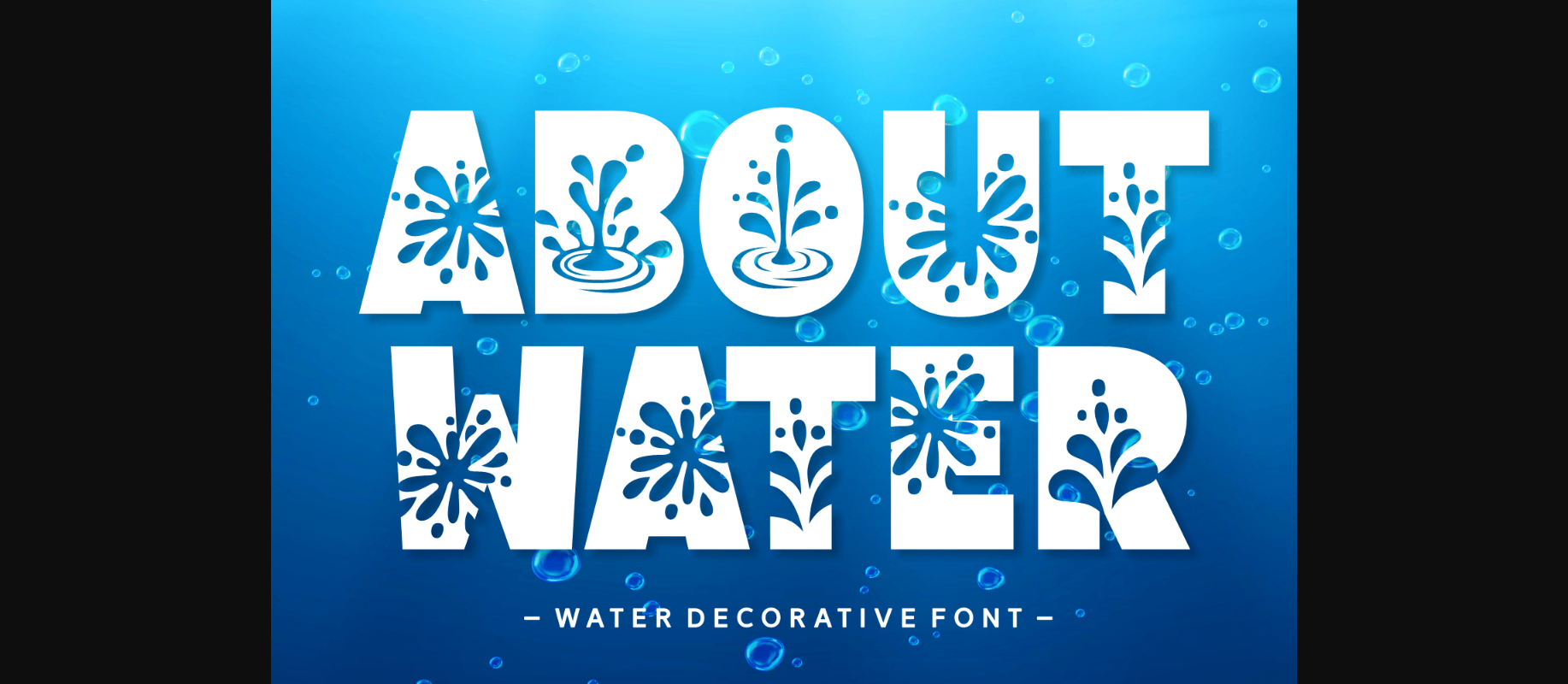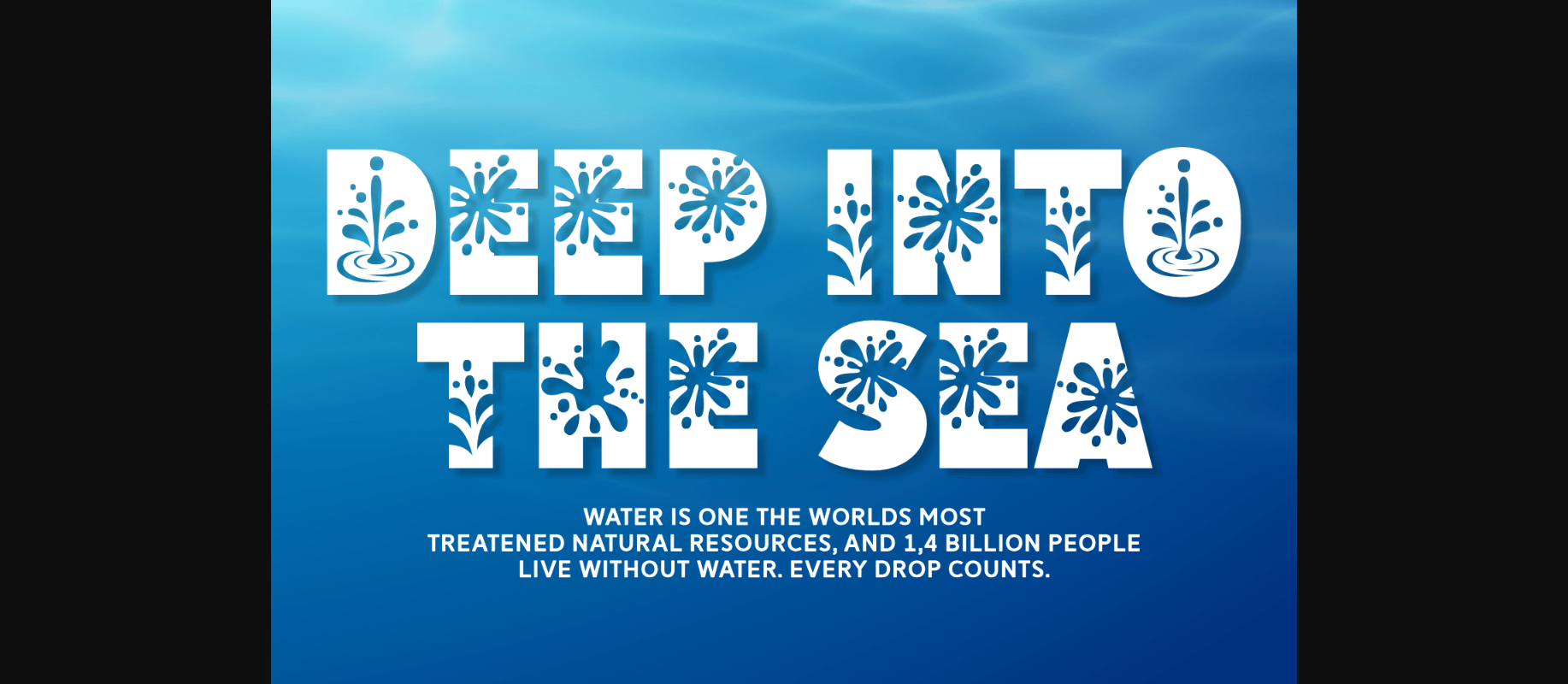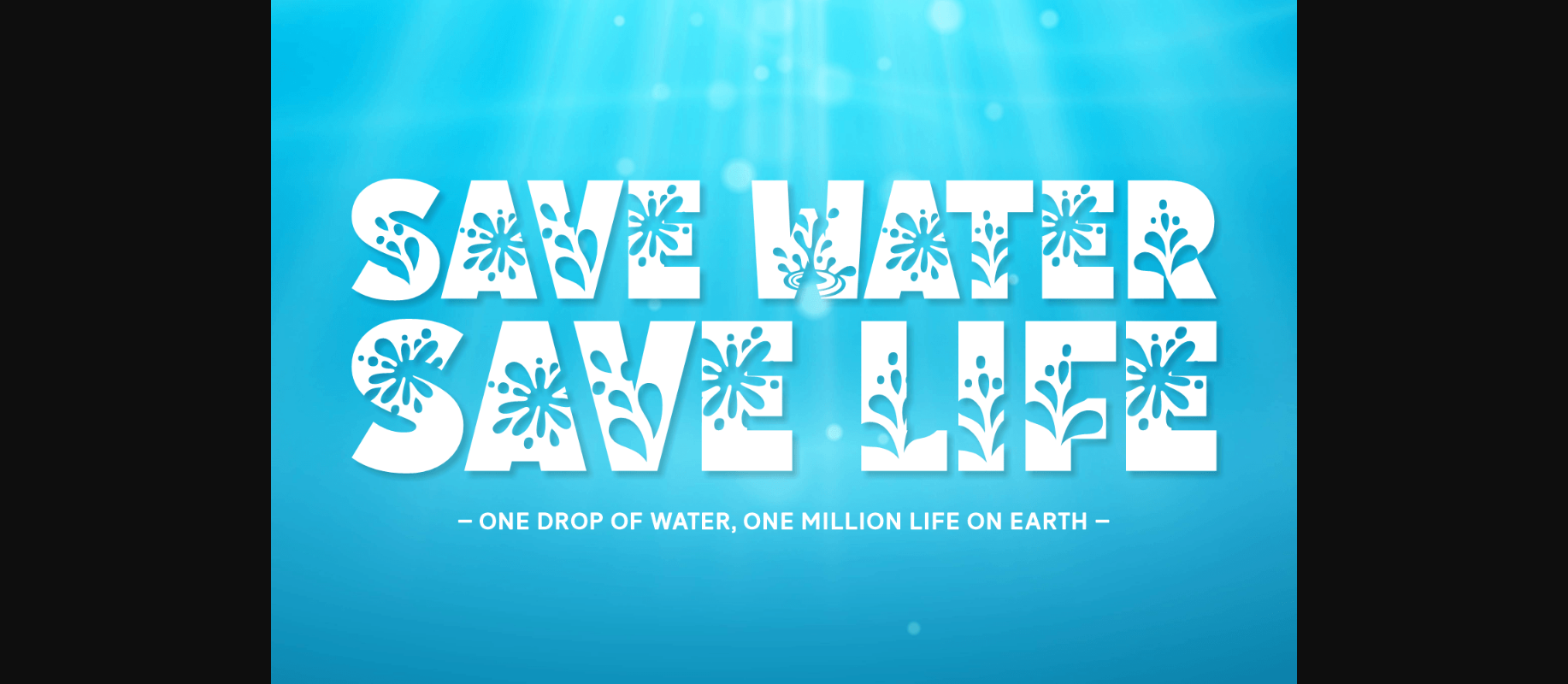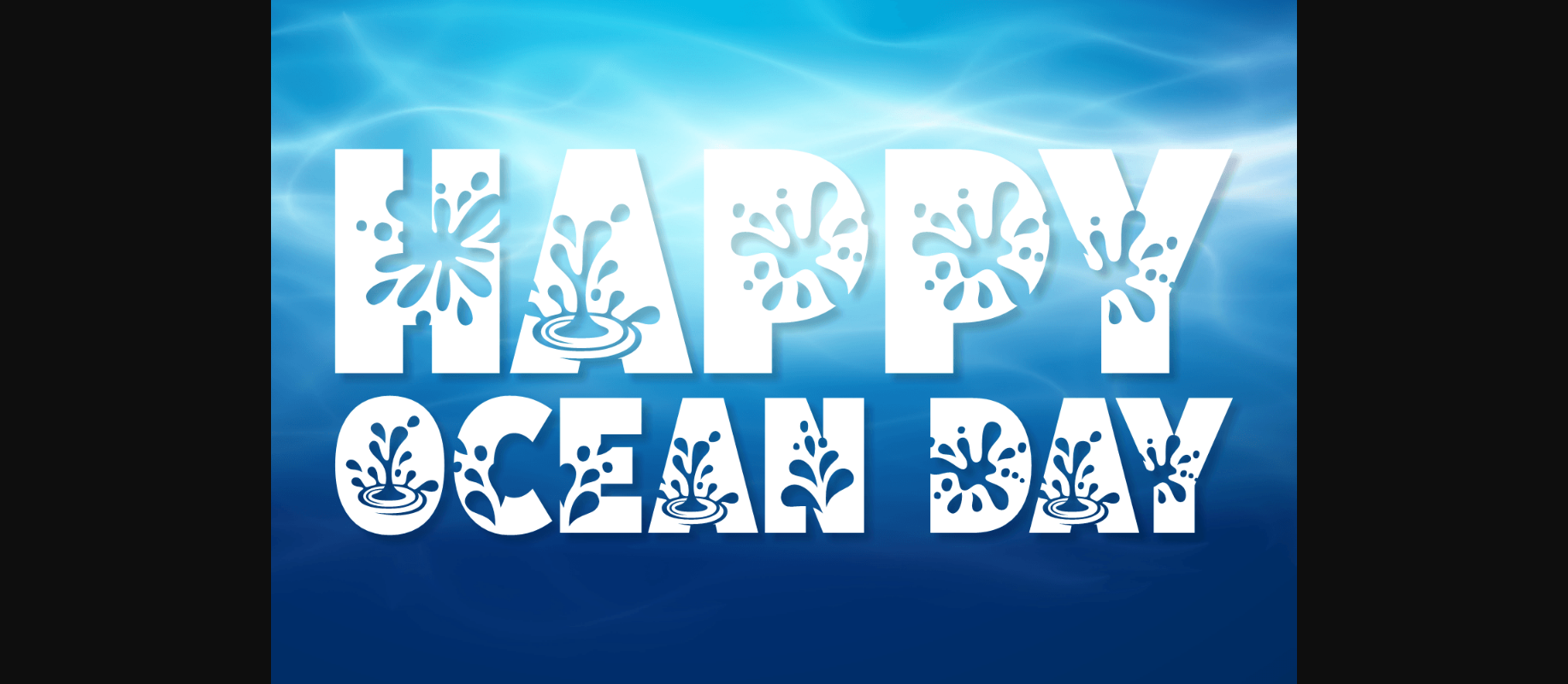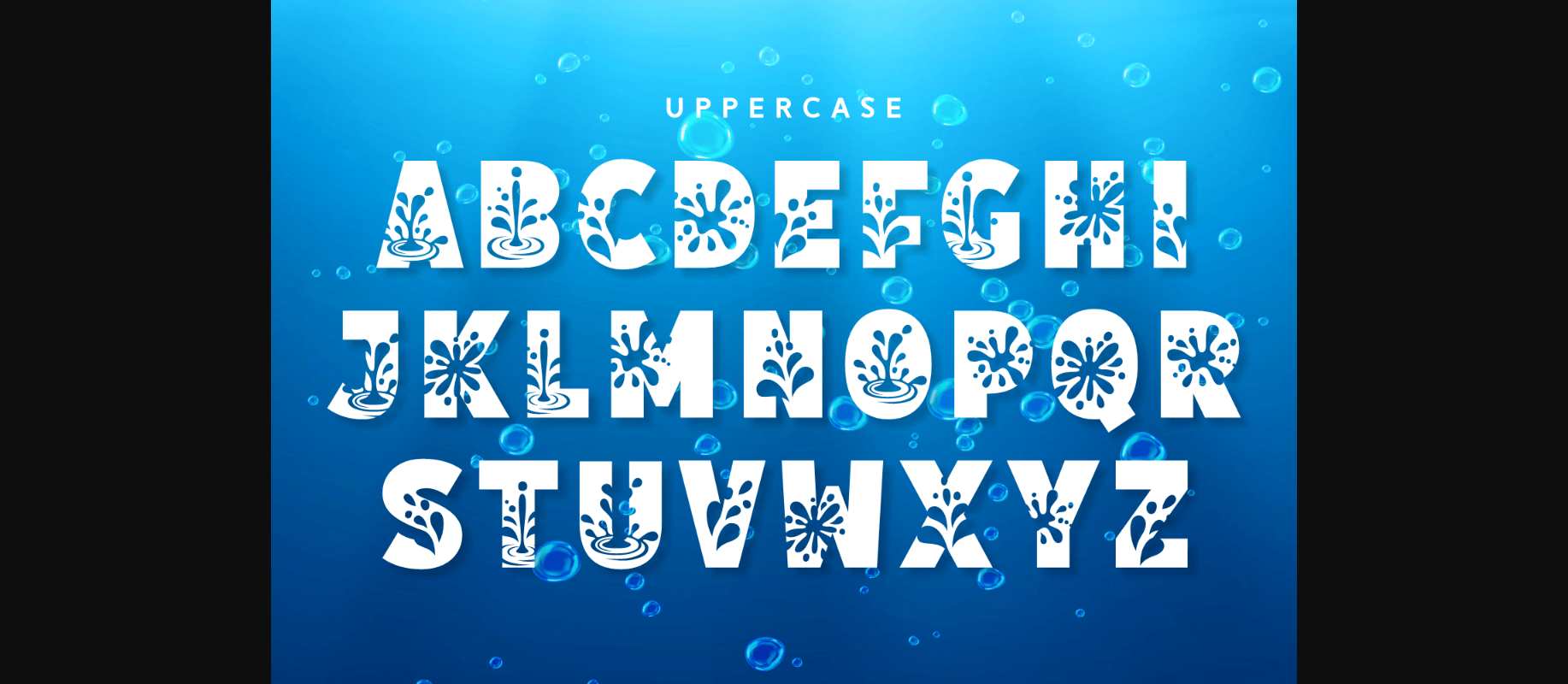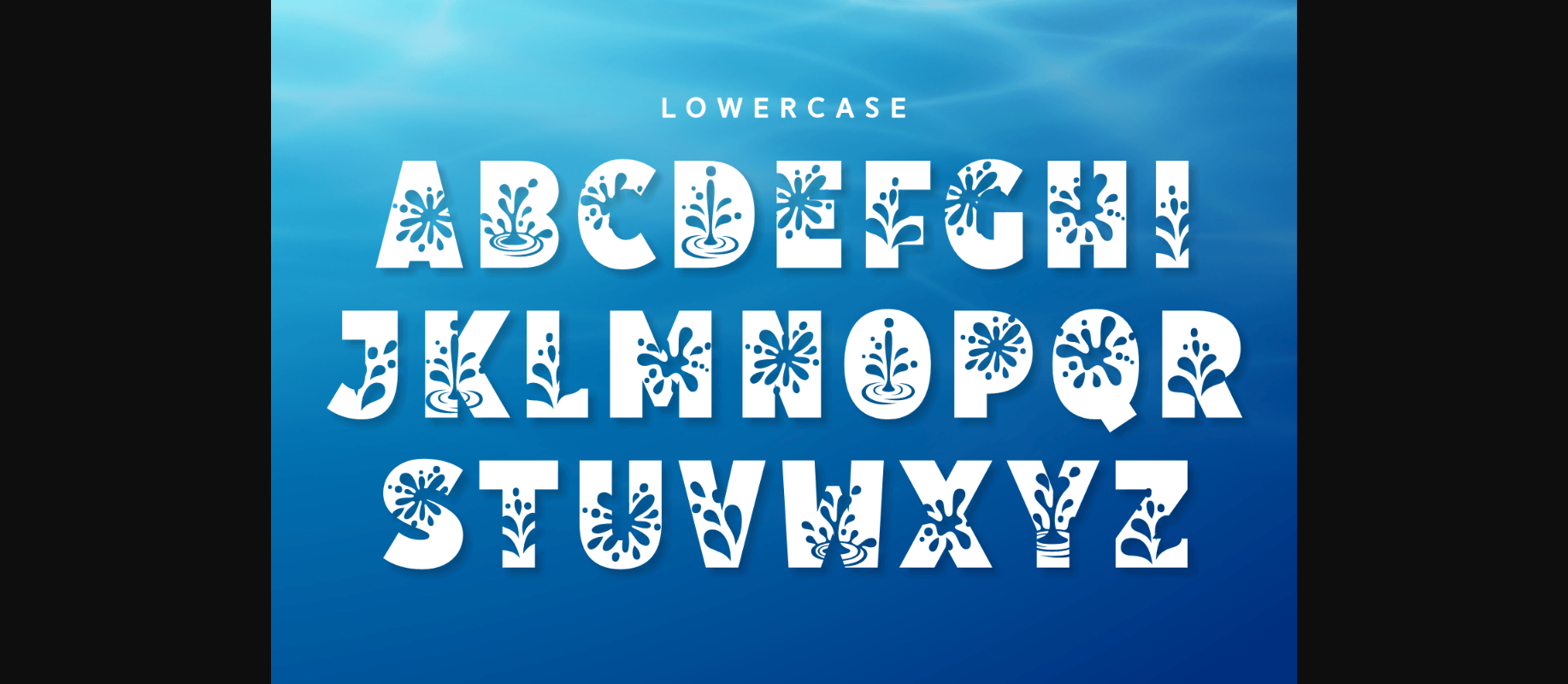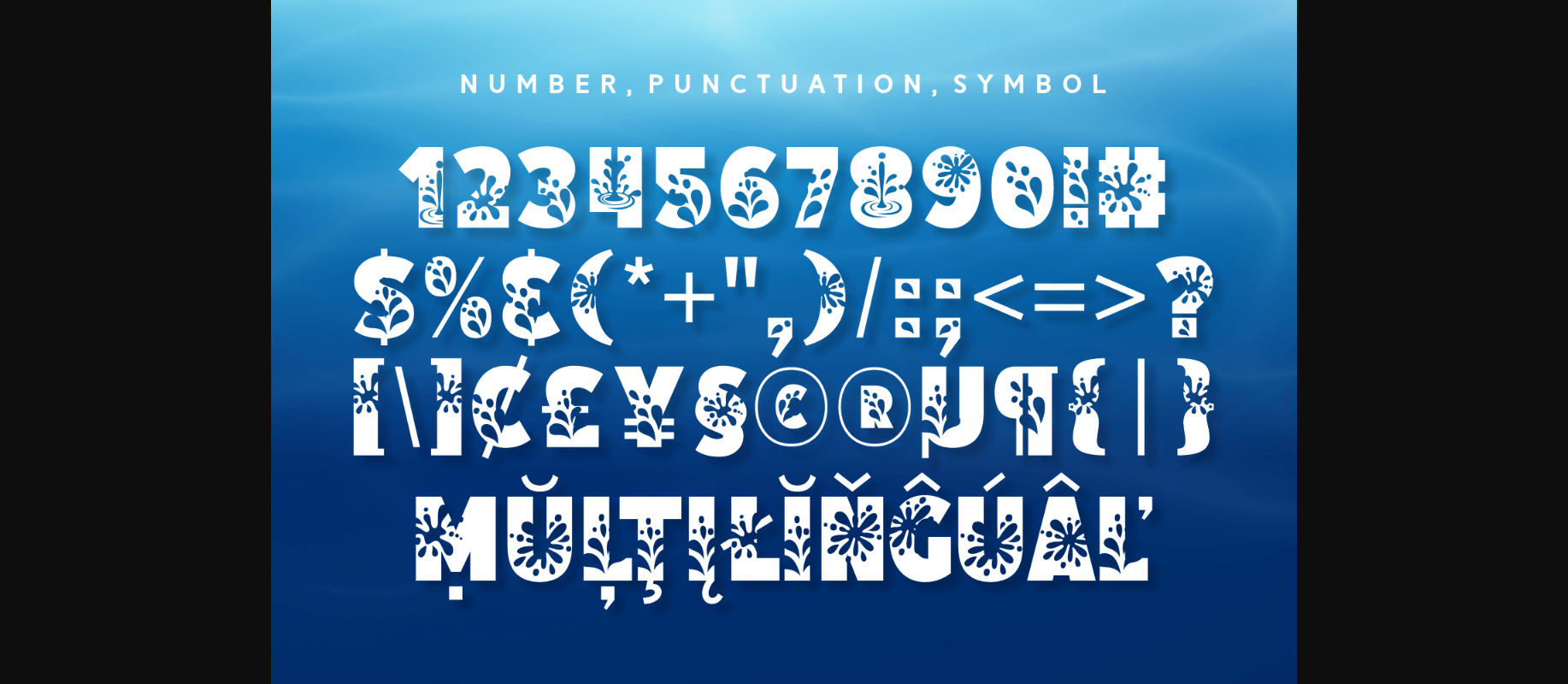
Water Font
About Water Font
About Water is a cute and playful decorative font. You can use it for various projects, such as blog posts, logos, branding, ads, invitations, greeting cards, planners, photo albums, decorations, and much more. Decorate any of your designs with it and enjoy the results!